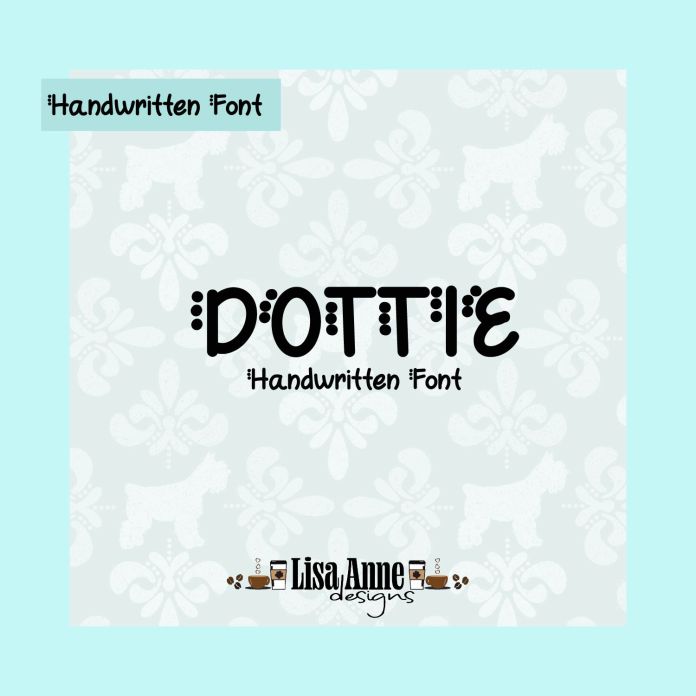
Add a playful touch to your projects with the Dottie font! This whimsical handwritten typeface features dotted accents for extra charm—perfect for cards, crafts, and personalized designs. OTF file included. Glyph count 141